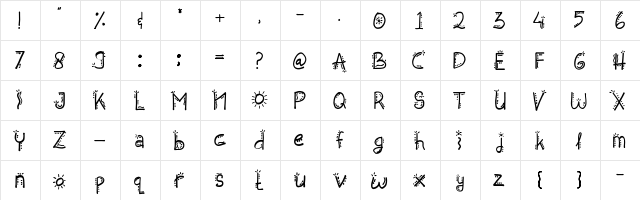
Happy Ending Regular
| Designer | Oziel89 Studio |
Design Context for Happy Ending Typeface
Happy Ending is a composed and adaptable typeface that performs quietly and consistently across a wide range of design contexts.